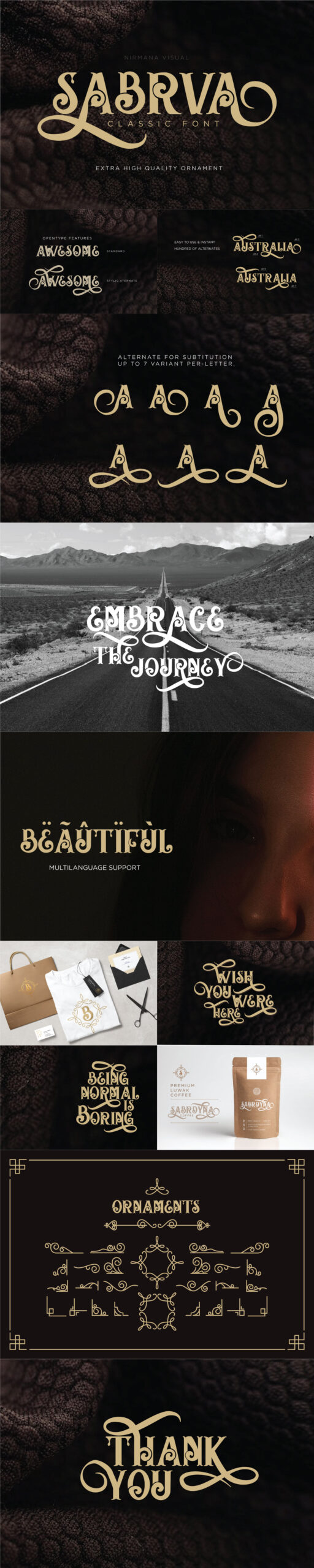
Give your design a classic style touch with Sabrva, the perfect font choice for powerful projects – watermarks, signatures, photography, logos, business cards, quotes, album covers. Free for personal use! For commercial use please go here.